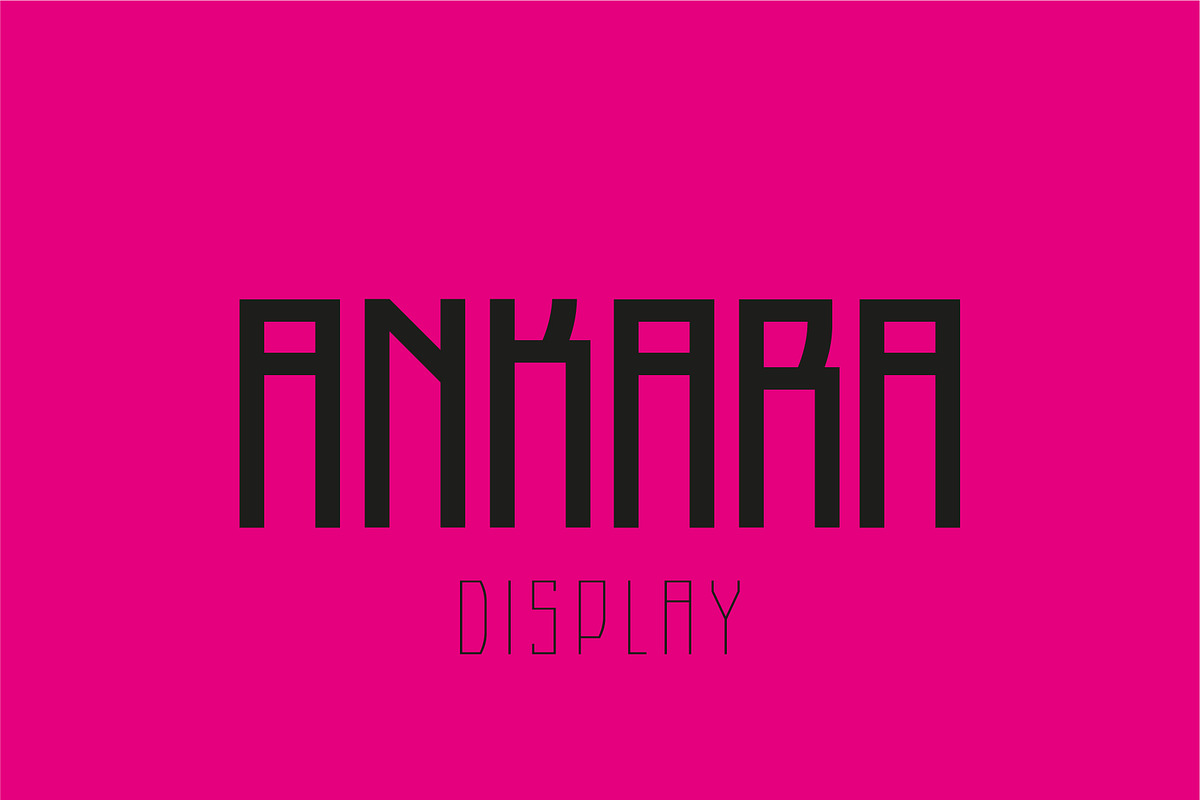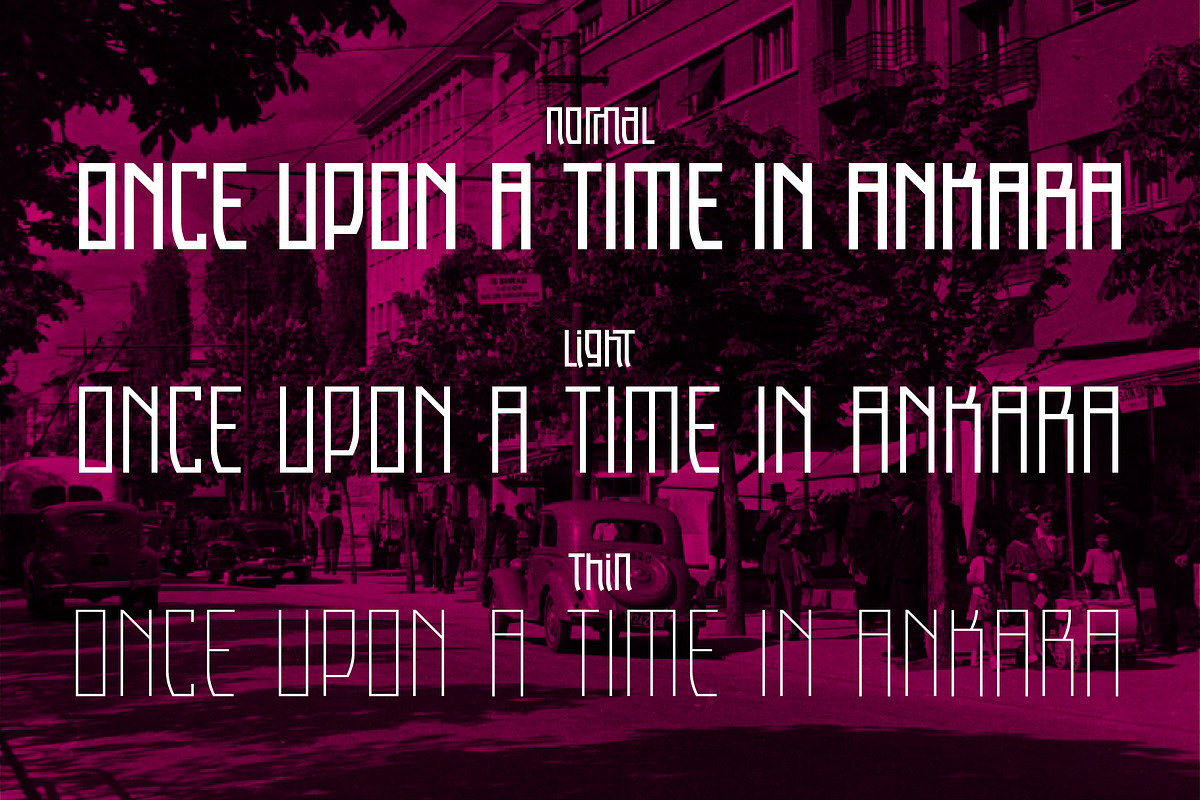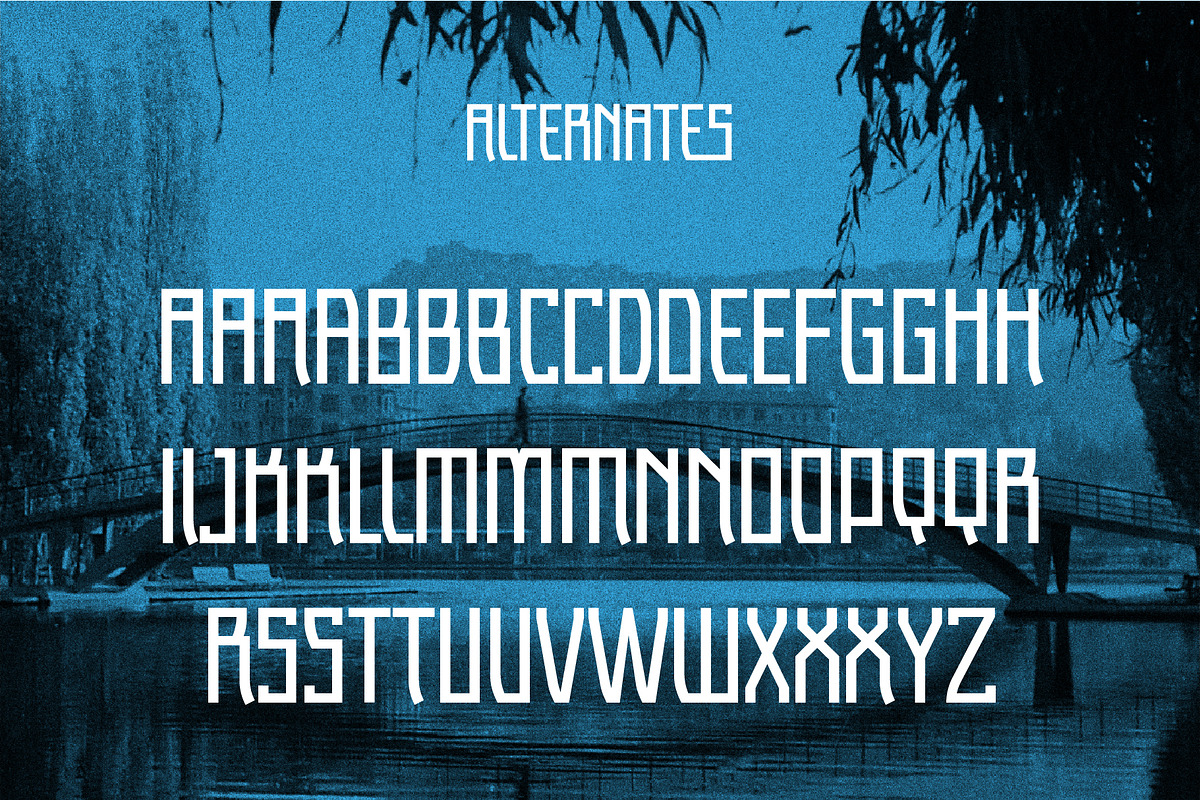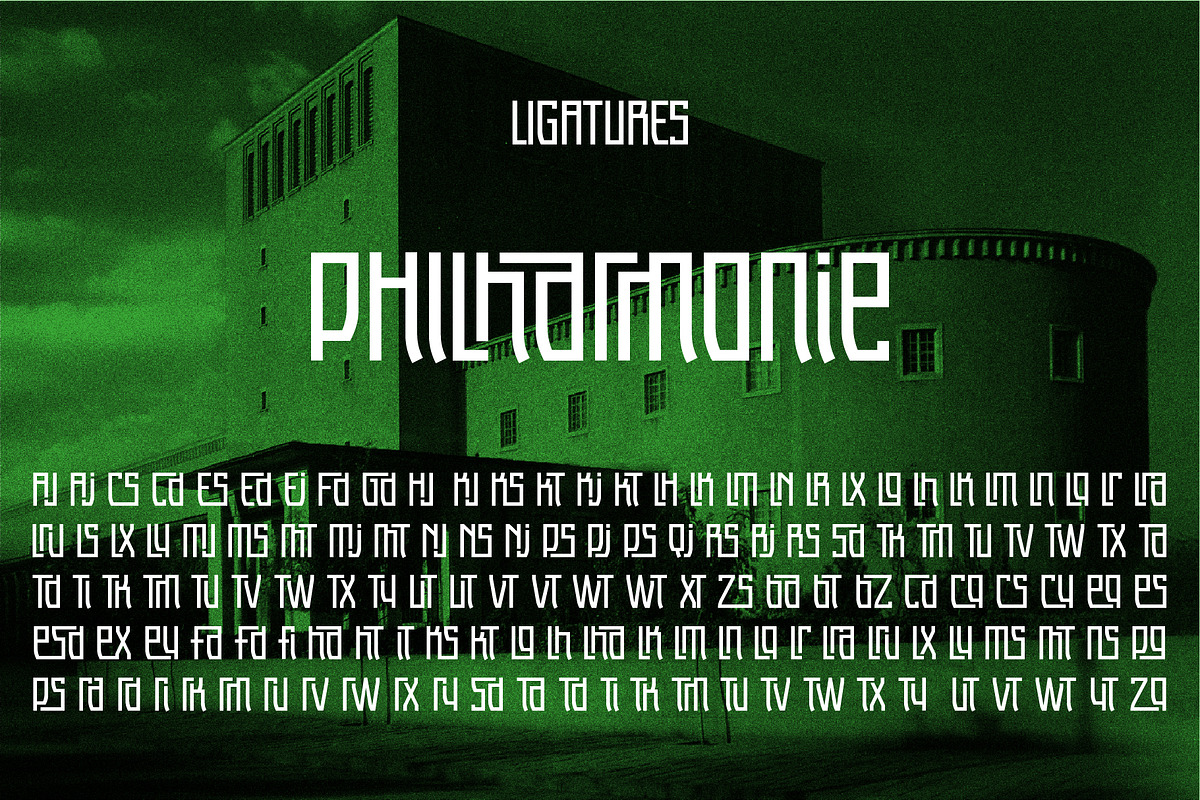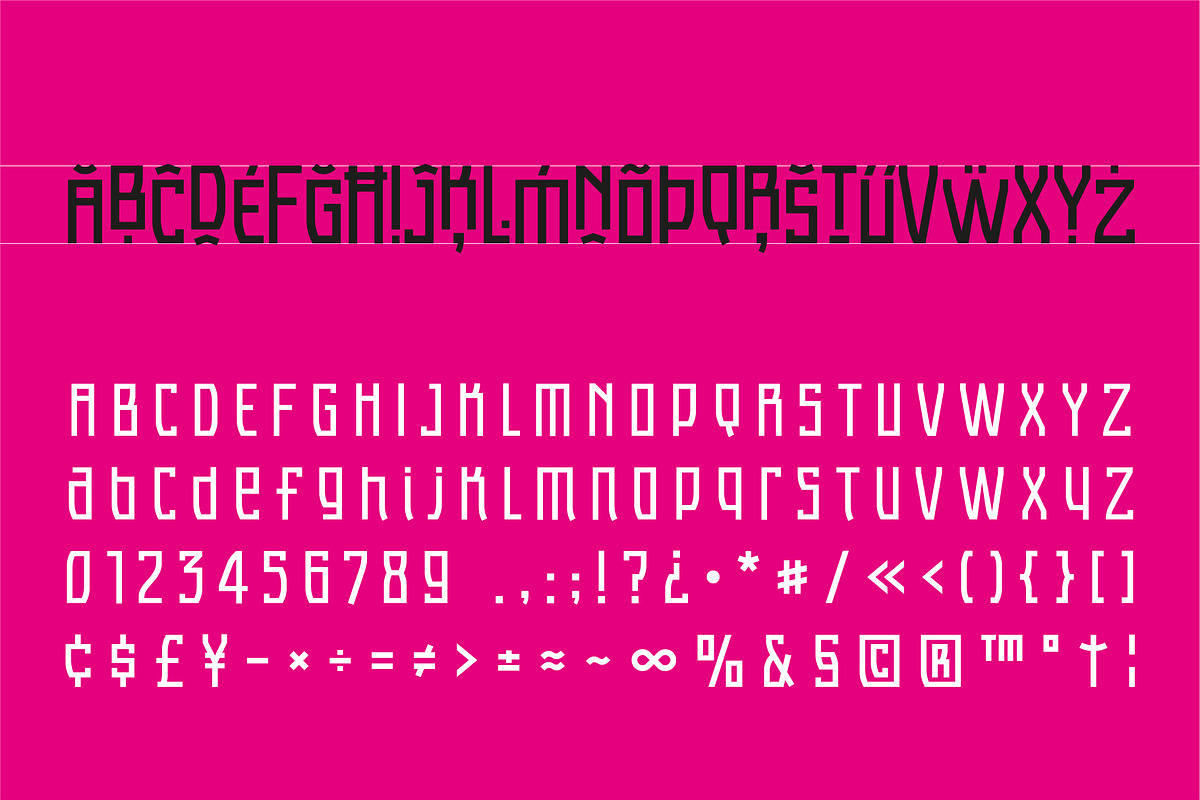
Ankara
Ankara is a display font that inspired by the forms of high windows, doors and gates of buildings that constructed in the early years of Republic of Turkey.